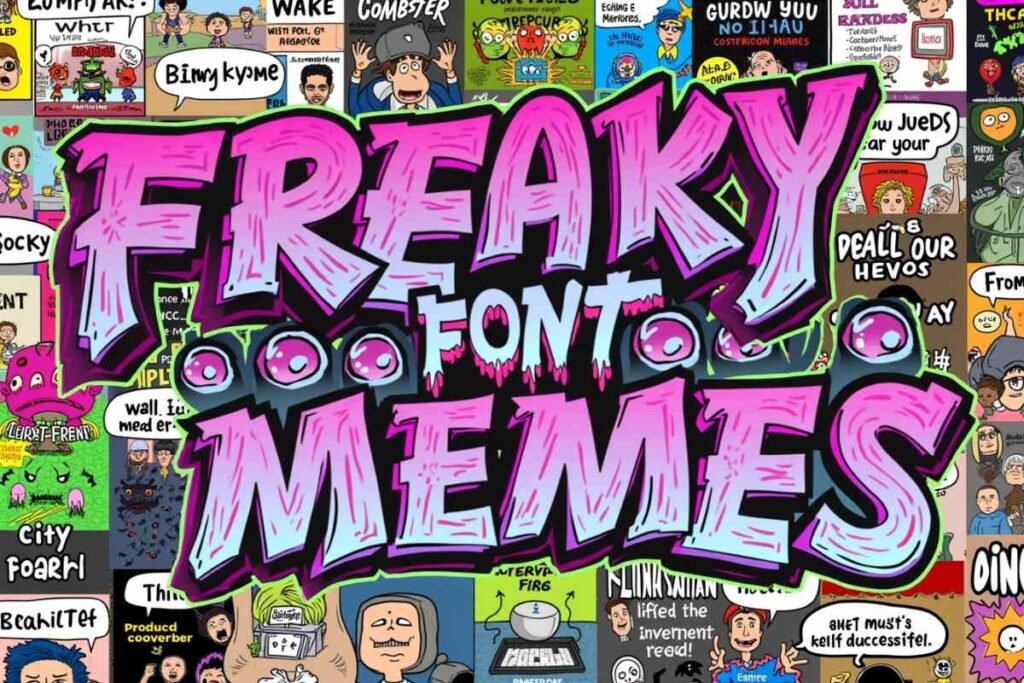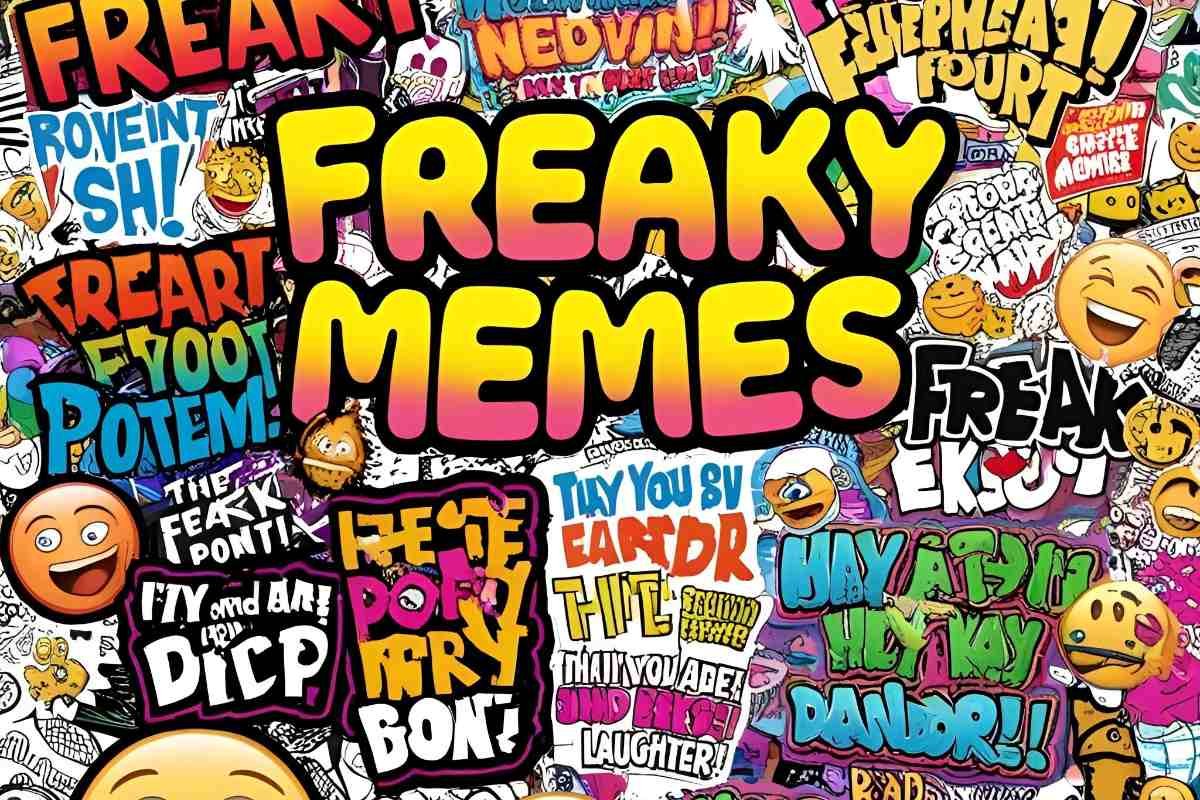
Freaky Font Memes
Freaky Font Memes: Create Viral & Engaging Content
Memes have become the universal language of the internet, effortlessly delivering humor, cultural commentary, or downright absurdity in a simple, shareable format. But what takes an ordinary meme and turns it into something unforgettable? While images and captions certainly play their part, fonts are the often-overlooked ingredient that give memes their undeniable flair.
If you’re ready to take your meme game to the next level, this guide will walk you through the power of Freaky Font Memes, reveal the best ones to use, and show you how to make your very own freaky font memes that stand out in any feed.
Why Freaky Font Memes Matter in Memes?
Freaky Font Memes
Would “Success Kid” be as iconic without the bold “Impact” font? Probably not. Fonts can make or break a Freaky Font Memes; they’re essential in grabbing attention while setting the tone for your message.
Here’s why fonts are crucial in memes:
• First Impressions Matter: According to studies, viewers decide whether to engage with content within just a few seconds. Fonts play a huge role in this snap judgment.
• Emotion Amplifier: Fonts can reinforce the vibe of your meme—whether it’s funny, nostalgic, creepy, or sarcastic.
• Memorability: A Freaky Font Memes can make your meme more distinct and more likely to be shared.
For example:
• The classic Impact font is bold and in-your-face—perfect for viral humor.
• Comic Sans is ironically funny, making its awkwardness ideal for self-deprecating memes.
• But add a freaky meme font like “Creepster” or “Chiller,” and suddenly your meme screams goth humor or “spooky season.”
Fonts speak a visual language of their own, and the right one can elevate your meme into viral territory.
Top for Freaky Font Memes
Looking to experiment with freaky fonts? We’ve compiled a list of standout options that can add visual pizzazz to your memes.
Creepster
Creepster is a bold and eerie font that perfectly captures the essence of horror and spookiness. With its jagged, uneven edges and dripping effect, it exudes a chilling vibe reminiscent of classic horror movie posters and haunted house themes.
This font is widely used for Halloween designs, eerie memes, dark humor, and spooky-themed graphics. Whether you’re creating a meme featuring a ghostly figure, a mysterious shadow, or an unsettling stare.
Creepster adds the perfect touch of fear and intrigue. It’s also a great choice for horror-themed party invitations, posters, and social media content that needs a dramatic, spine-chilling look. If you want to give your text a haunting presence that stands out, Creepster is the ideal font to create a creepy, unsettling atmosphere!
Lobster
Lobster is a stylish and bold script font that combines elegance with a modern, retro twist. Known for its smooth curves, connected letters, and slightly vintage feel, it adds a touch of sophistication to any design.
This font is perfect for eye-catching headlines, branding, social media graphics, and even sarcastic or playful memes. Its distinctive look makes it a favorite for café menus, product packaging, and logos, giving designs a trendy yet timeless appeal.
Whether you’re using it for a witty meme caption like “Morning’s canceled ” or creating aesthetic typography, Lobster brings charm and personality to the text. Its versatility and bold presence make it a go-to choice for anyone looking to add flair and visual impact to their creative projects.
Chiller
Chiller is a spooky and dramatic font known for its jagged, distorted lettering that exudes an eerie, unsettling vibe. With its irregular strokes and rough edges, it creates a chilling effect, making it a popular choice for horror-themed designs, Halloween graphics, and creepy memes.
This font is perfect for adding a sense of mystery and suspense to posters, invitations, or social media content related to haunted houses, ghost stories, or thriller events. Whether you’re crafting a meme with a sinister twist or designing a horror movie title, Chiller instantly amplifies the fear factor.
Its bold and unsettling appearance ensures that any text grabs attention, making it a go-to font for those who want to evoke a sense of dread and excitement in their visuals of Freaky Font Memes.
Comic Neue
Comic Neue is a modern and refined take on the widely recognized Comic Sans font, designed to be more polished while retaining its playful and friendly personality. With smoother curves and improved letter spacing, it offers a casual yet professional look, making it a great choice for lighthearted designs, social media graphics, and fun meme captions.
This font is perfect for adding a humorous and approachable feel to content without the informal clunkiness of Freaky Font Memes its predecessor. Whether you’re creating a cheerful presentation, a witty meme, or a playful brand design, Comic Neue brings a balance of readability and charm. Its versatility makes it suitable for both digital and print projects, ensuring that text appears fun, engaging, and visually appealing.
Bleeding Cowboys
Bleeding Cowboys is a rugged and dramatic font that exudes a wild, rebellious, and vintage Western feel. With its distressed, splattered edges and bold, decorative strokes, it perfectly captures the essence of the Old West, making it a popular choice for cowboy-themed designs, rock band posters, and edgy branding.
Freaky Font Memes is ideal for creating a dramatic and rustic look in memes, vintage-style graphics, and adventure-themed content. Whether you’re designing a Western movie poster, a rodeo flyer, or a meme with a touch of outlaw humor, Bleeding Cowboys adds a raw, untamed aesthetic. Its unique, weathered appearance makes it stand out, giving any text a sense of toughness, history, and artistic flair.
Distorted Pixel
Distorted Pixel is a retro, blocky Freaky Font Memes that brings back the nostalgic feel of old-school video games and pixelated graphics. Designed to mimic the aesthetic of classic 8-bit and 16-bit arcade games, it’s perfect for gaming-themed content, memes, and digital artwork that needs a vintage touch.
With its pixelated, glitchy appearance, this font is ideal for creating a cyberpunk, tech-inspired, or glitch effect in designs. Whether you’re making a meme with a throwback gaming reference, designing retro-style posters, or creating futuristic digital art, Distorted Pixel adds a nostalgic yet modern edge.
Its bold and jagged lettering ensures high readability while maintaining a unique and playful style, making it a favorite for gamers, content creators, and tech enthusiasts alike.
How to Use Freaky Fonts in Meme Creation?
Using freaky fonts in meme creation is a great way to make your content more engaging, humorous, and visually striking. To start, choose a freaky font generator like FreakyFonts, LingoJam, or Cool Fancy Text Generator to create unique text styles that suit the tone of your meme
. Once you generate the text, simply copy and paste it into a meme-making tool such as Canva, Adobe Photoshop, or an online meme generator like Imgflip. If you prefer to download fonts, platforms like DaFont and FontSpace offer a variety of stylish and eye-catching fonts in .TTF or .OTF formats, which you can install and use in your design software.
When designing your meme, ensure that the font complements the image and message—bold, glitchy, or gothic fonts work well for dark humor, while cursive or decorative fonts can enhance aesthetic and wholesome memes.
Experiment with font sizes, colors, and outlines to make the text readable and attention-grabbing. By incorporating freaky fonts, you can give your memes a unique and creative touch, making them stand out across social media platforms like Instagram, Twitter, and Facebook.
Where to Download Freaky Fonts?
If you’re looking to download freaky fonts for personal or professional use, several online platforms offer a vast collection of unique and stylish fonts. FreakyFonts is a great place to explore and copy-paste fonts instantly.
But if you need downloadable font files, websites like DaFont, FontSpace, and 1001 Free Fonts provide a wide selection of free and premium fonts. These platforms offer various font styles, including gothic, cursive, glitch, and decorative fonts, which can be used for social media designs, branding, or creative projects.
Simply search for your desired font, download the file (usually in .TTF or .OTF format), and install it on your device to use in design software like Photoshop, Canva, or Microsoft Word. Always check the licensing terms to ensure proper usage, especially for commercial projects.
Examples of Viral Memes Using Freaky Fonts
Need some inspiration? Here are some standout memes that have gone viral thanks to their bold font choices.
Example 1
• Font: Creepster
• Meme: A picture of a black cat perched awkwardly, captioned, “The prophecy has been fulfilled.”
Example 2
• Font: Comic Neue
• Meme: An image of a toddler with a chocolate-smeared face, captioned, “Not guilty… okay, maybe a little.”
Key takeaway? Experimentation with fonts can help your memes stand out in crowded feeds.
Take Your Memes to the Next Level
Want to make your Freaky Font Memes stand out and grab even more attention? Take your memes to the next level with freaky fonts! Whether you’re creating spooky, funny, or eye-catching memes for Halloween, social media, or just for fun, using unique and stylish fonts can instantly make your text pop.
Freaky cursive, gothic fonts, and other stylish text effects give your memes a bold, creative twist that grabs the viewer’s attention.
With tools like the Freaky Fonts Generator, you can easily customize your meme text to match the mood—whether you want it to be creepy, funny, or just plain cool. By adding these unique fonts to your memes, you’ll elevate your content and make it more shareable and memorable, helping you boost engagement and stand out in crowded feeds!
Conclusion
Freaky Font Memes are a great way to make your content more engaging and shareable. By incorporating unique freaky fonts like gothic, spooky cursive, or other stylish text effects, you can elevate your memes and make them stand out in the crowded world of social media.
Whether you’re creating memes for Halloween or just want to add a fun, edgy twist to your posts, using these fonts will give your memes the extra flair they need to go viral. So, unleash your creativity and take your memes to the next level with eye-catching fonts that capture attention and spark conversations!
Frequently Asked Questions
What makes a font “freaky”?
A font is considered “freaky” when it has unique, bold, or unconventional characteristics that grab attention and give a meme a distinct personality.
Can I use multiple fonts in one meme?
Absolutely! Mixing fonts can add depth and humor to your meme, but be sure to keep it balanced to avoid clutter.
Are freaky fonts suitable for all types of memes?
While they work great for humor, shock, or standout messages, some memes might benefit from simpler fonts for clarity.
Where can I download freaky fonts?
How do I know if my font choice is effective?
Test your memes by sharing them with friends or on small online communities first. If it garners strong reactions, you’ve likely nailed the font choice!
Can I use freaky fonts for professional designs?
Yes, you can! While freaky fonts are perfect for playful or spooky projects.